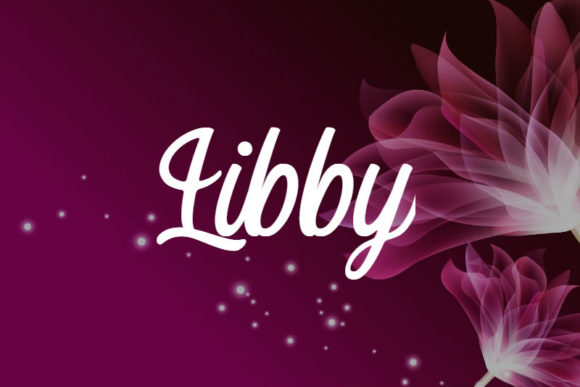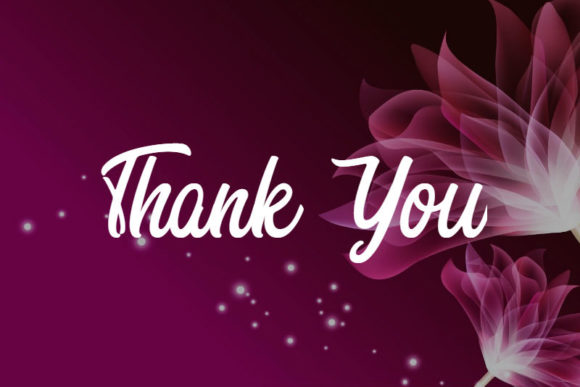
HomeScript FontsLibby Font Script Fonts Libby Font FacebookXPinterestWhatsApp Libby Font Poster 2 About Libby Font Libby is the go-to font for every crafter in need of a friendly and charming script. DOWNLOAD ON CREATIVE FABRICAThis font is sold and delivered by Creative Fabrica. Font Canyon may earn a commission if you buy through this link. People also explored Gebrina Font Wish List Font Play Brush Font Ludhovicf Black Font Meity Font Chess Shape Font Ghingsul Font Subscribe Family Font Beautiful Homework Font 361 0 TagsLibby Font Previous articleKeira FontNext articleMaathuis Font LEAVE A REPLY Cancel reply Comment: Please enter your comment! Name:* Please enter your name here Email:* You have entered an incorrect email address! Please enter your email address here Website: Save my name, email, and website in this browser for the next time I comment. Personal Use Free Ciggs Personal Use Free Read more about this font Awkward Personal Use Free Read more about this font Kinda Sweet Personal Use Free Read more about this font Crayones Personal Use Free Read more about this font BLOG Modern Sans-Serif Fonts That Brands Love in 2025 In 2025, modern sans-serif fonts remain a top choice for brands looking to project clarity, professionalism, and... How to Cut Any Font on Cricut: Convert a Font to SVG (Free) Best Fonts for YouTube Videos: Make Your Thumbnails Stand Out Top 7 Google Fonts Alternatives for Faster and Privacy-Friendly Web Design (2025)